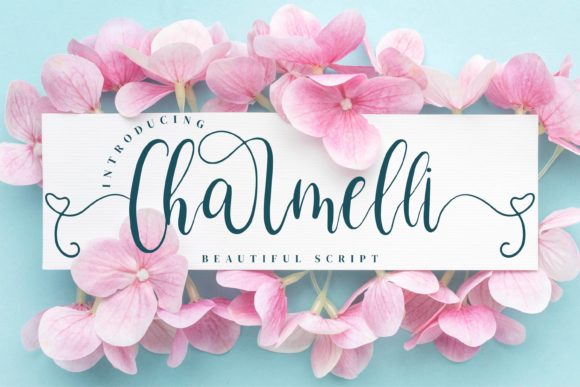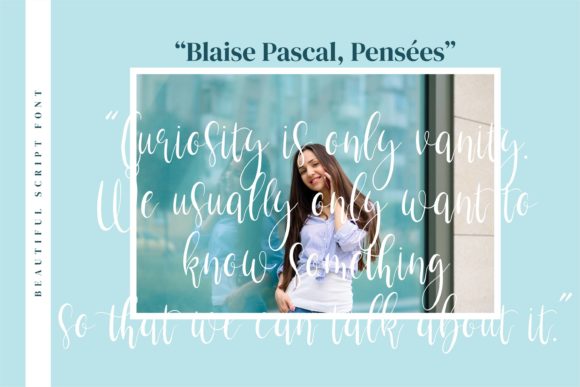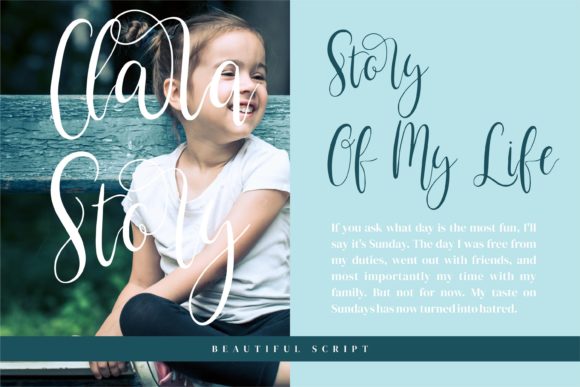
About Charmelli Font
Charmelli is a chic, refined script font that emanates sophistication and elegance. Its stylish alternates and ligatures make this font the perfect match for any project.